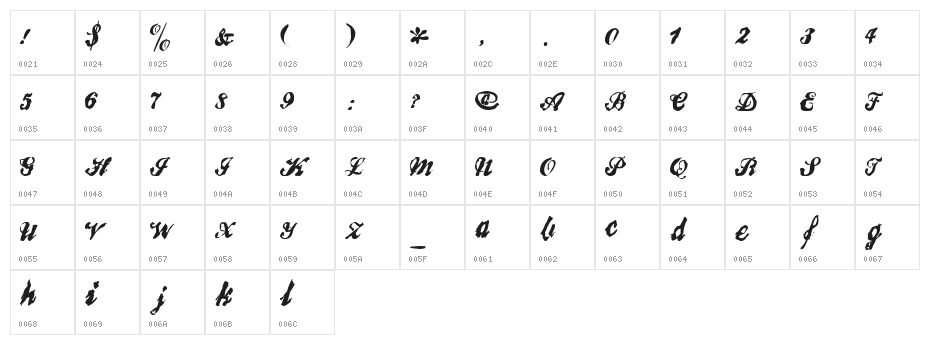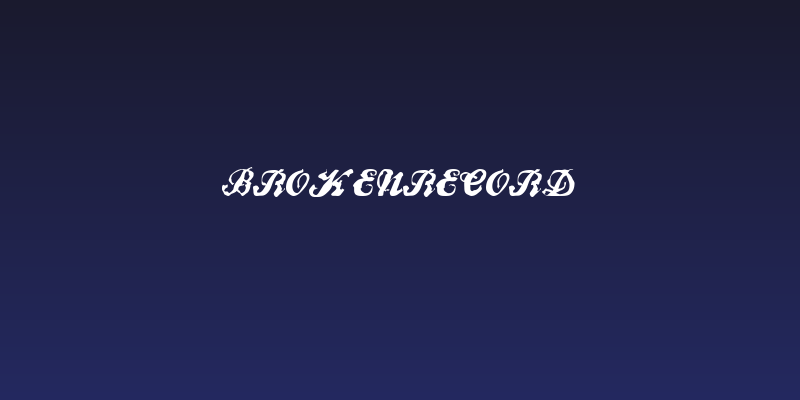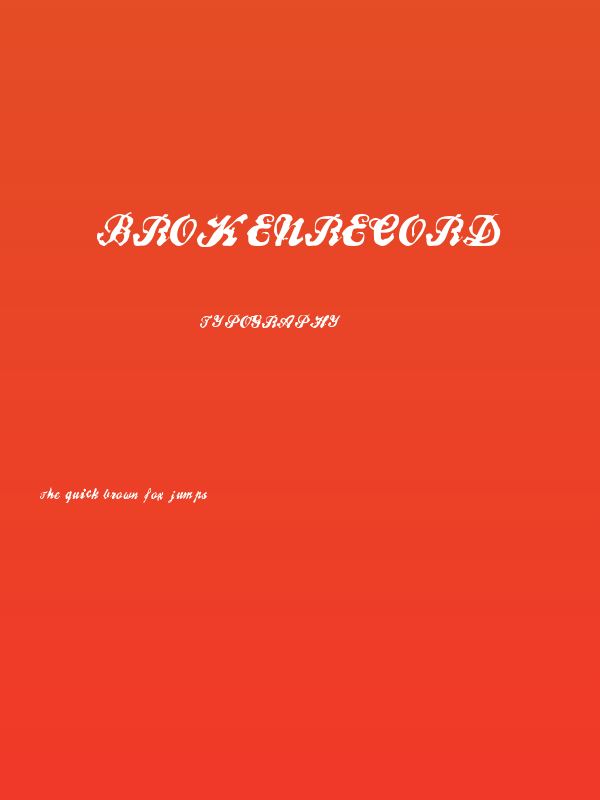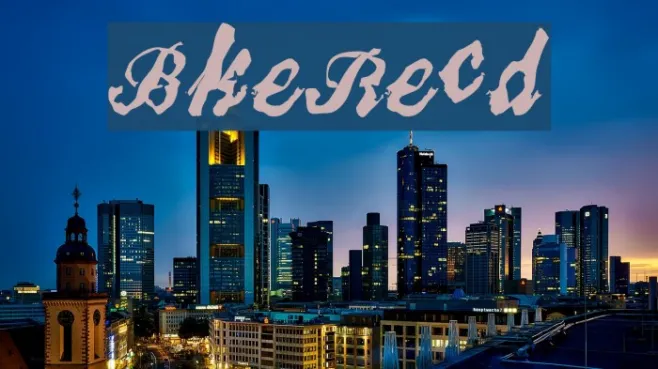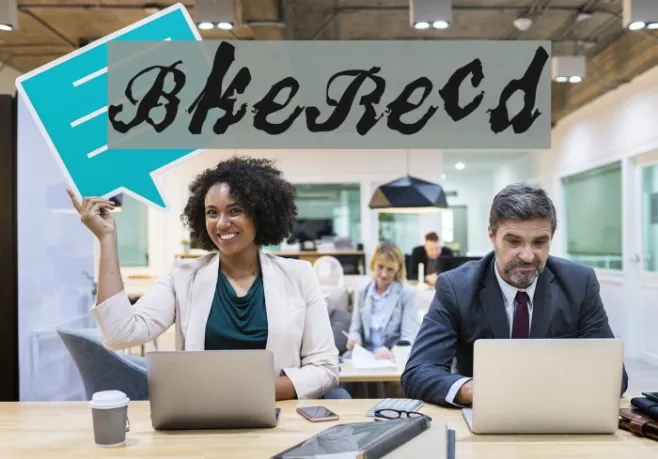
BrokenRecord Font
BrokenRecord Description
This font features a bold and dynamic script style with a strong calligraphic influence. The characters are intricately designed with high contrast between thick and thin strokes, giving it a dramatic and artistic flair. The uppercase letters exhibit a sense of elegance and fluidity, while the lowercase letters maintain a consistent flow, enhancing readability despite their decorative nature. The numerals and special characters are crafted to match the overall aesthetic, ensuring a cohesive look across all text. This font's unique style makes it stand out, perfect for projects that require a touch of sophistication and creativity.